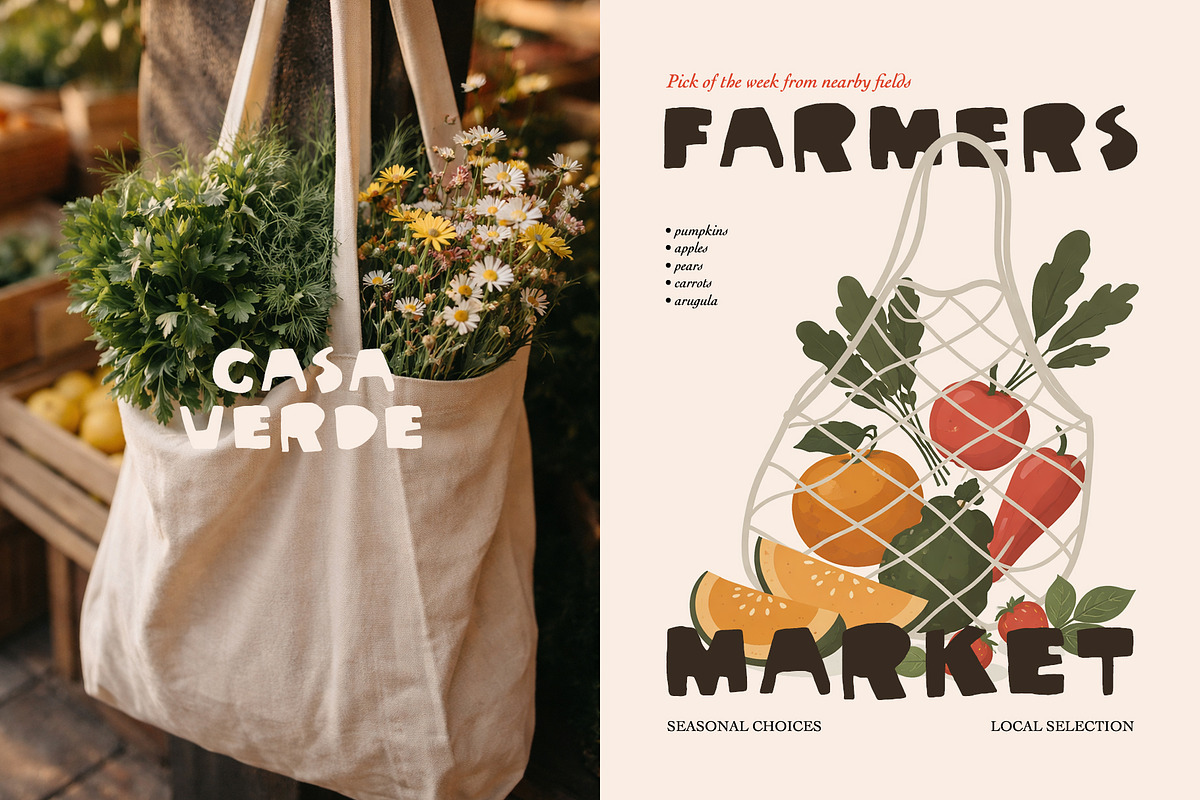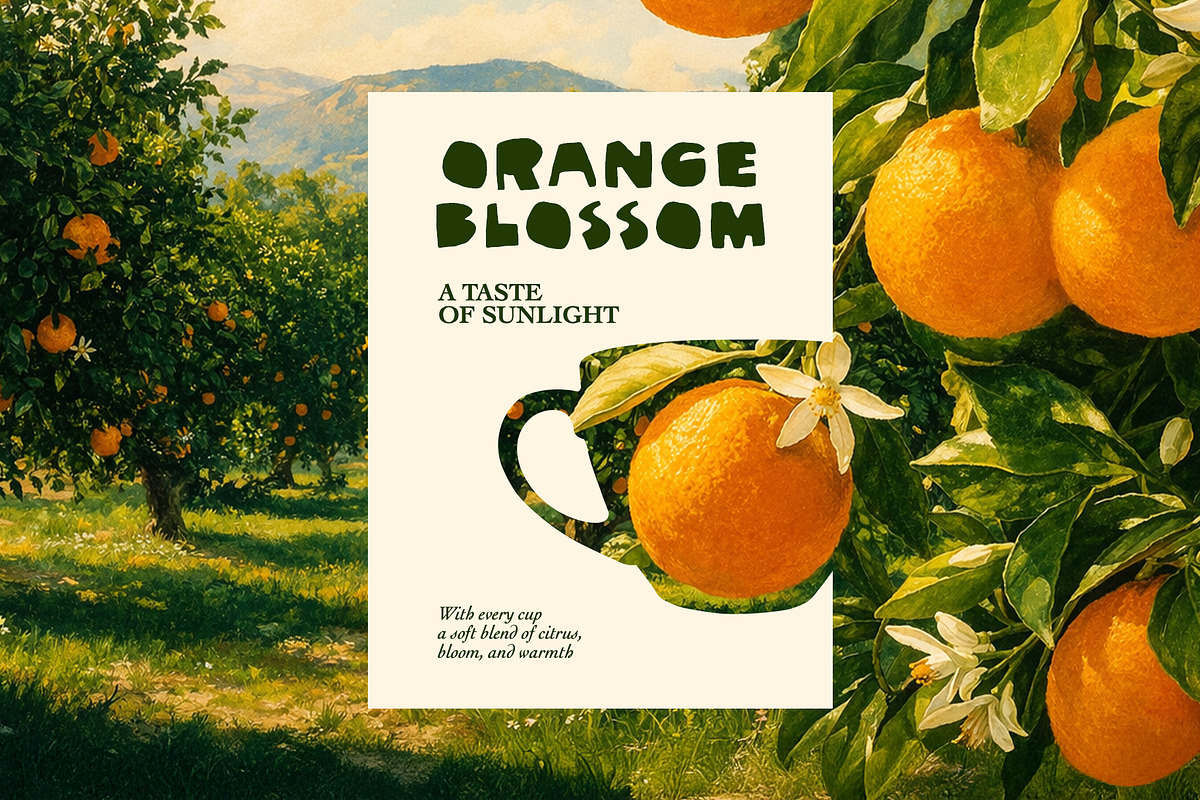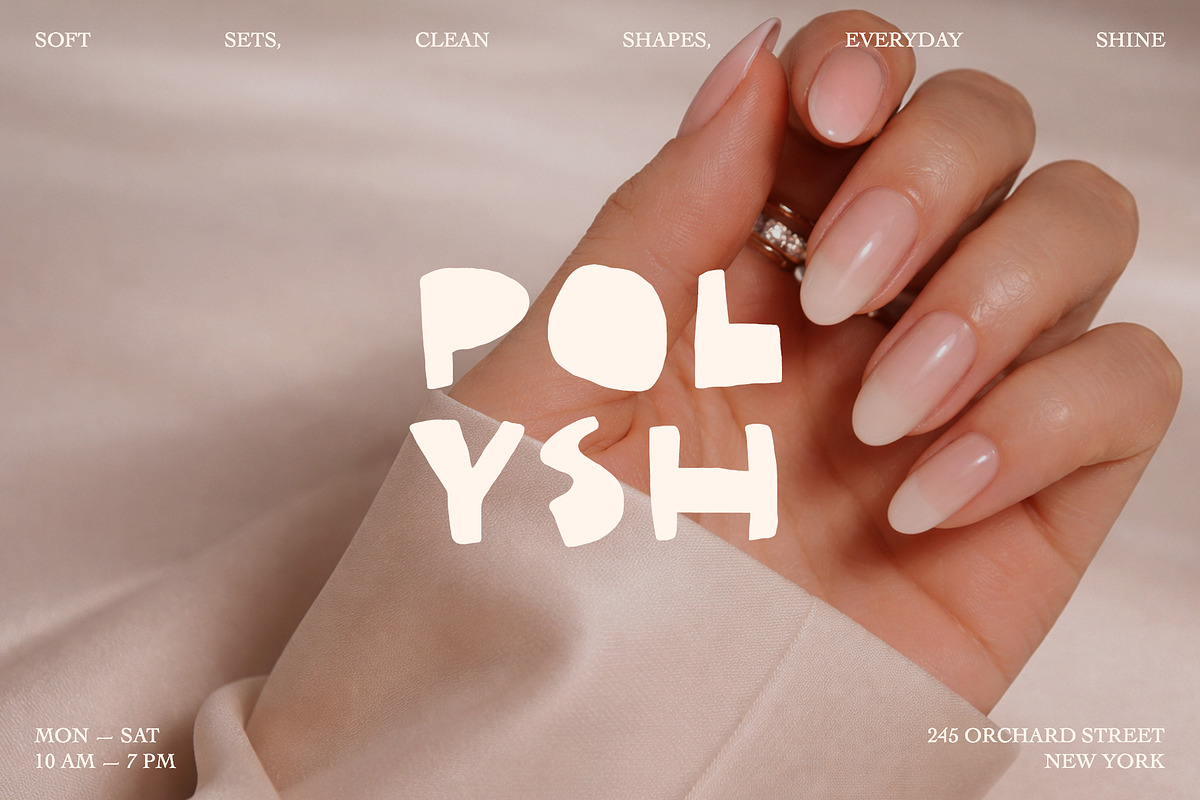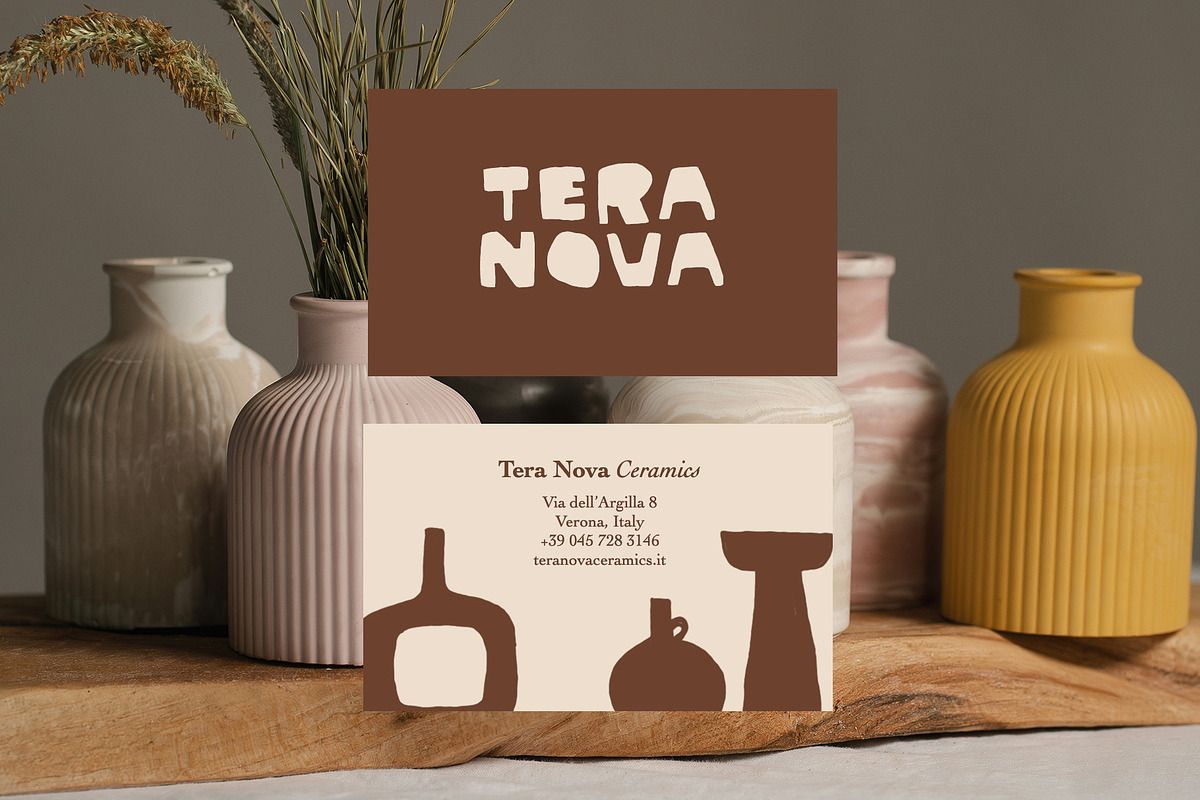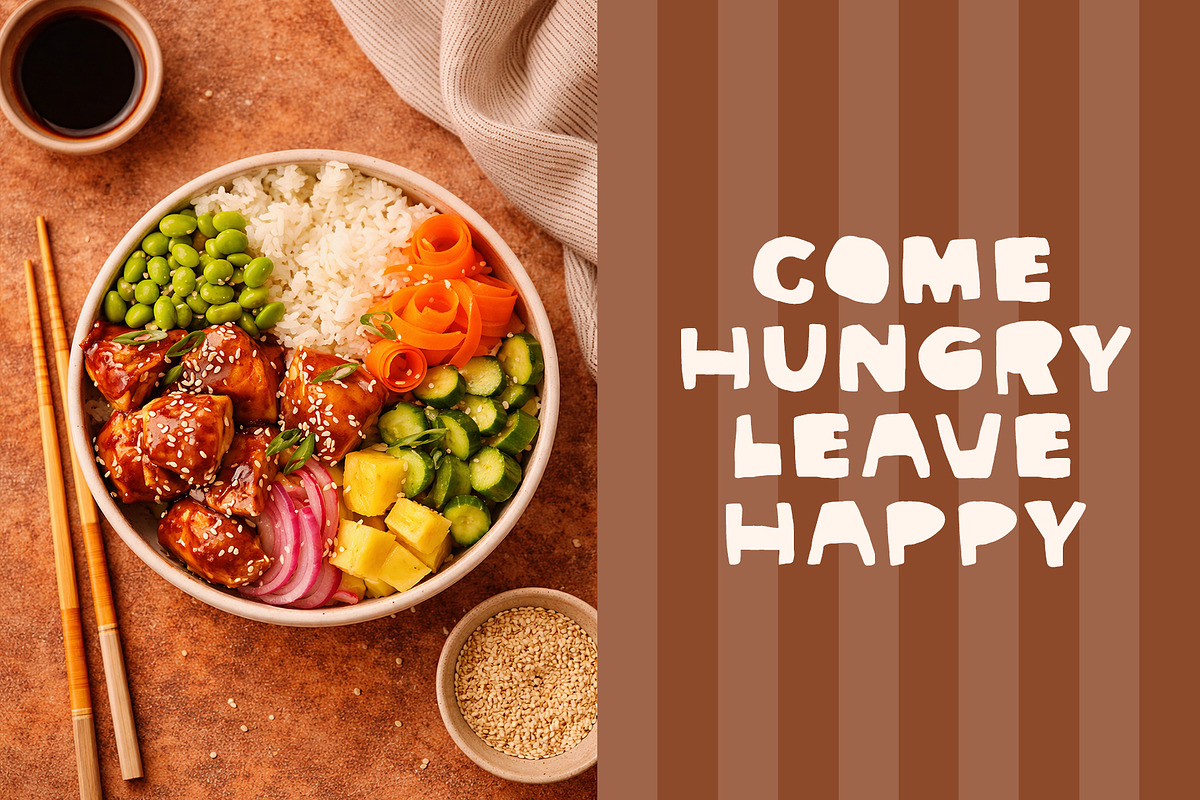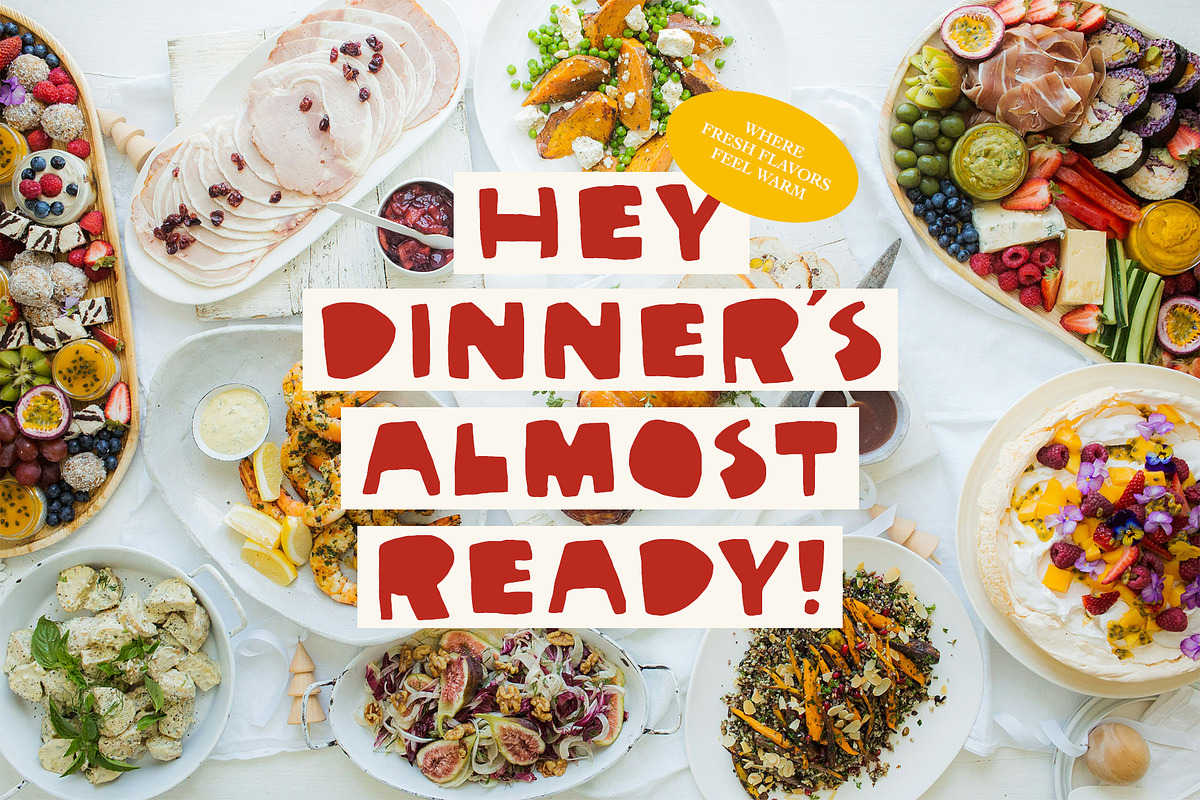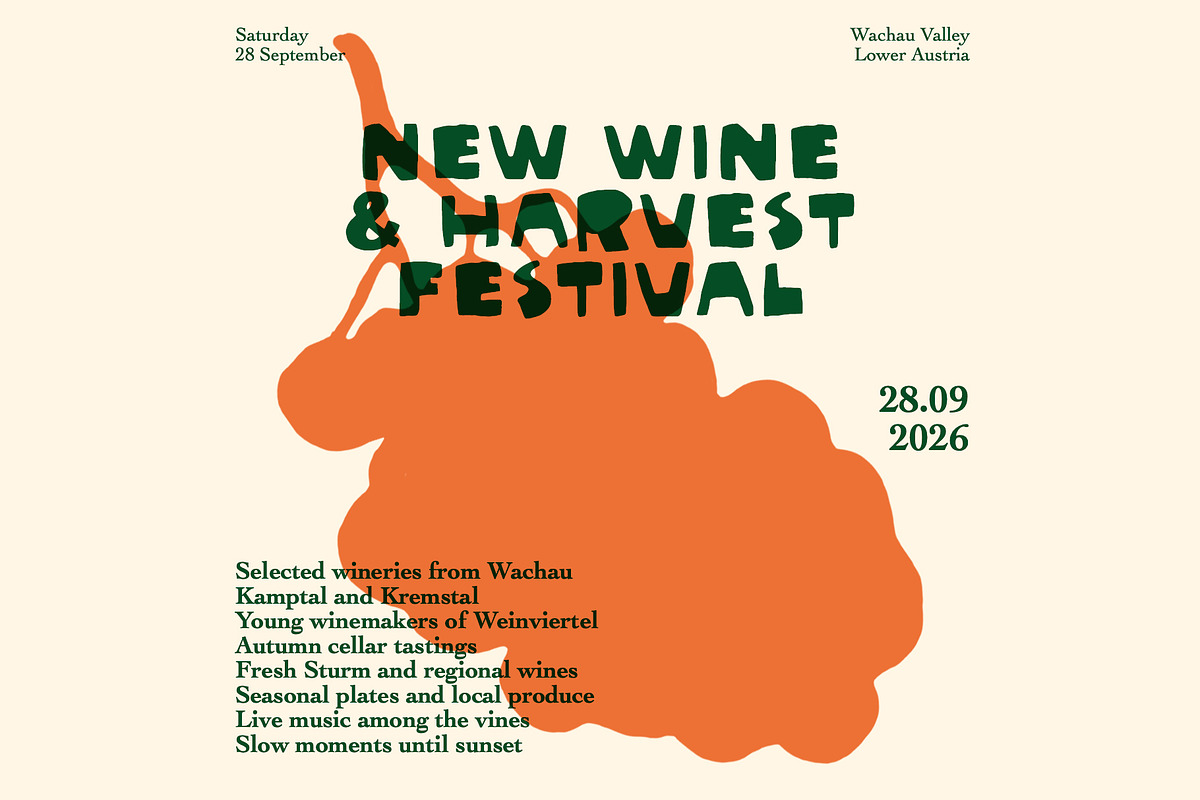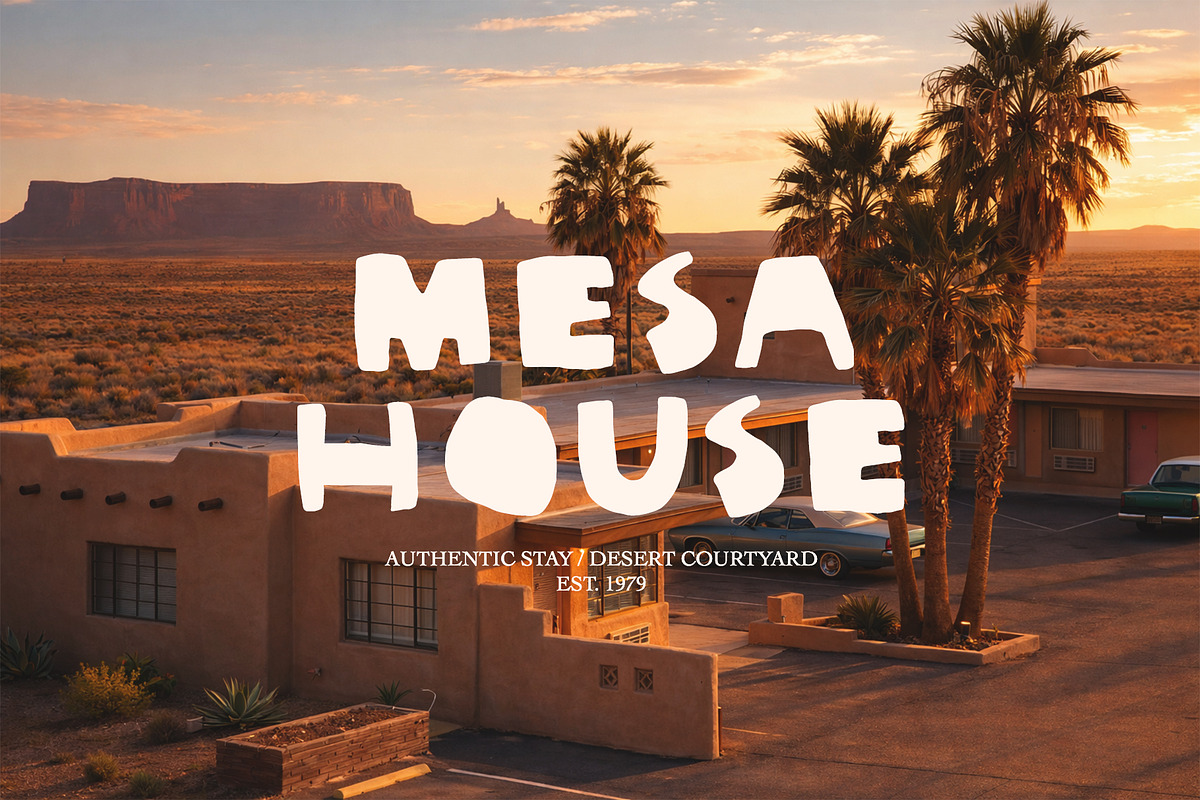
Tambora playful handmade display
Tambora is a warm, playful handmade display font created for designers who want typography with real character. Inspired by cutout shapes, imperfect forms, and tactile visual language, it brings a soft organic charm to branding, packaging, posters, and editorial projects. Its bold silhouette and friendly personality make it especially suitable for food concepts, ceramic studios, farmers markets, cafés, seasonal campaigns, artisanal products, and lifestyle brands that need a more human and expressive tone.
Tambora works beautifully in headlines, logos, labels, social media graphics, and creative layouts where a polished but not overly perfect look makes all the difference.